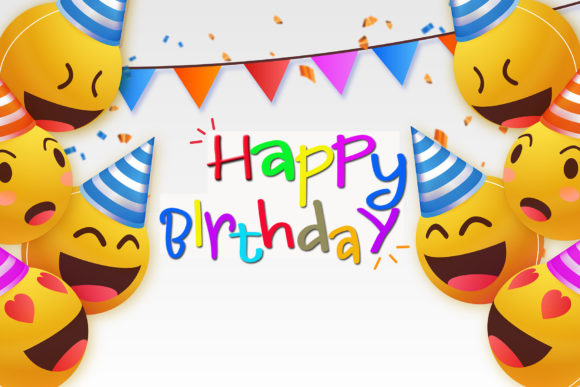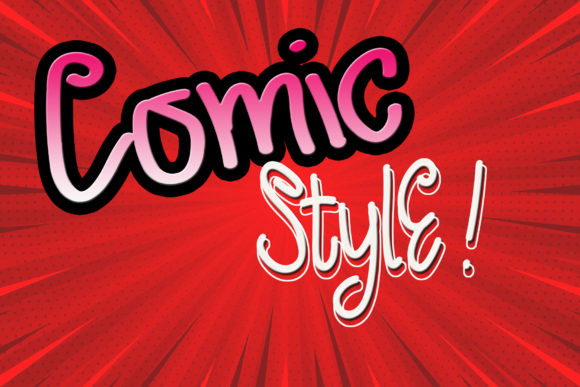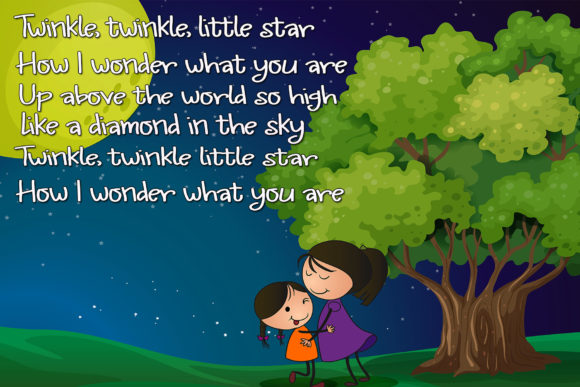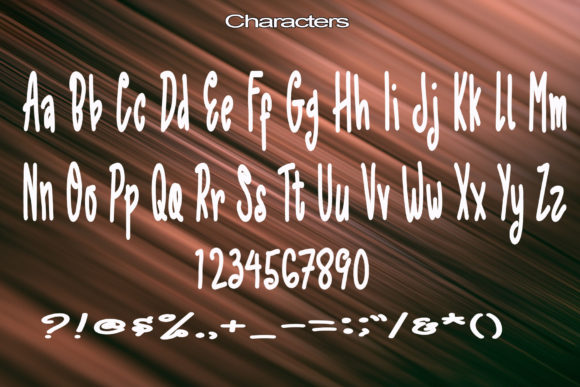
Bolo Bold Font: Elevate Your Creative Projects with a Cool and Crafty Handwritten Style
Are you a designer, crafter, or DIY enthusiast looking for a unique and eye-catching font to elevate your creative projects? Look no further than Bolo Bold Font! This cool and crafty handwritten font is perfect for turning any creative idea into a true piece of art. In this article, we’ll explore the features and benefits of Bolo Bold Font, and show you how to make the most of this amazing font in your designs.
What is Bolo Bold Font?
Bolo Bold Font is a modern, handwritten font that exudes a sense of playfulness and sophistication. Its bold and expressive lettering makes it perfect for a wide range of creative projects, from social media graphics and posters to DIY crafts and calligraphy scripts. With its unique and eye-catching style, Bolo Bold Font is sure to grab attention and leave a lasting impression.
Key Features of Bolo Bold Font
- Handwritten style: Bolo Bold Font features a beautiful, handwritten style that’s perfect for adding a personal touch to your designs.
- Bold and expressive lettering: The font’s bold and expressive lettering makes it perfect for headlines, titles, and other attention-grabbing elements.
- Cool and crafty vibe: Bolo Bold Font has a cool and crafty vibe that’s perfect for designers and crafters who want to add a touch of personality to their designs.
- Versatile: Bolo Bold Font is versatile and can be used for a wide range of creative projects, from social media graphics to DIY crafts.
Uses for Bolo Bold Font
Bolo Bold Font is perfect for a wide range of creative projects, including:
- Social media graphics: Use Bolo Bold Font to create eye-catching social media graphics that grab attention and drive engagement.
- Posters and flyers: Bolo Bold Font is perfect for creating bold and eye-catching posters and flyers that promote your brand or event.
- DIY crafts: Add a personal touch to your DIY crafts with Bolo Bold Font, perfect for creating unique and personalized gifts.
- Calligraphy scripts: Bolo Bold Font is perfect for creating beautiful calligraphy scripts for special occasions, such as weddings and anniversaries.
Tips for Using Bolo Bold Font
Here are some tips for using Bolo Bold Font in your designs:
- Use it as a headline font: Bolo Bold Font is perfect for use as a headline font, adding a bold and eye-catching element to your designs.
- Pair it with other fonts: Bolo Bold Font pairs well with other fonts, such as sans-serif fonts, to create a unique and visually appealing design.
- Experiment with colors: Bolo Bold Font looks great in a range of colors, so don’t be afraid to experiment and find the perfect color for your design.
Bolo Bold Font is a cool and crafty handwritten font that’s perfect for designers, crafters, and DIY enthusiasts who want to add a touch of personality to their designs. With its bold and expressive lettering, versatile style, and wide range of uses, Bolo Bold Font is sure to become a favorite font in your collection. So why wait? Download Bolo Bold Font today and start creating amazing designs that grab attention and leave a lasting impression!